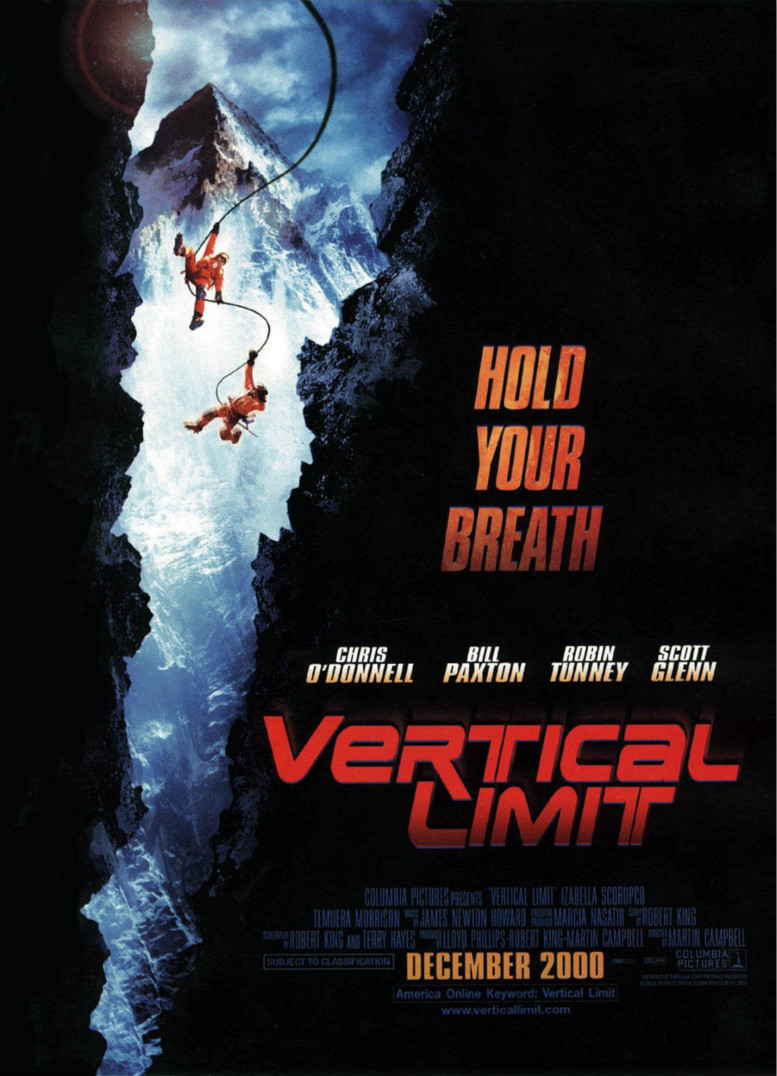
Vertical Limit Font
Fonts in UseVertical Limit is a 2000 action-adventure film directed by Martin Campbell. It follows a team of climbers who must brave treacherous conditions on K2, the world's second-highest mountain, to rescue their trapped companions.
The poster's film title font resembles Earth Normal font obliqued version by Elfring Soft Fonts, while the sans serif font used for the credits text appears to be Plakette TS DemiBold Oblique from TypeShop.